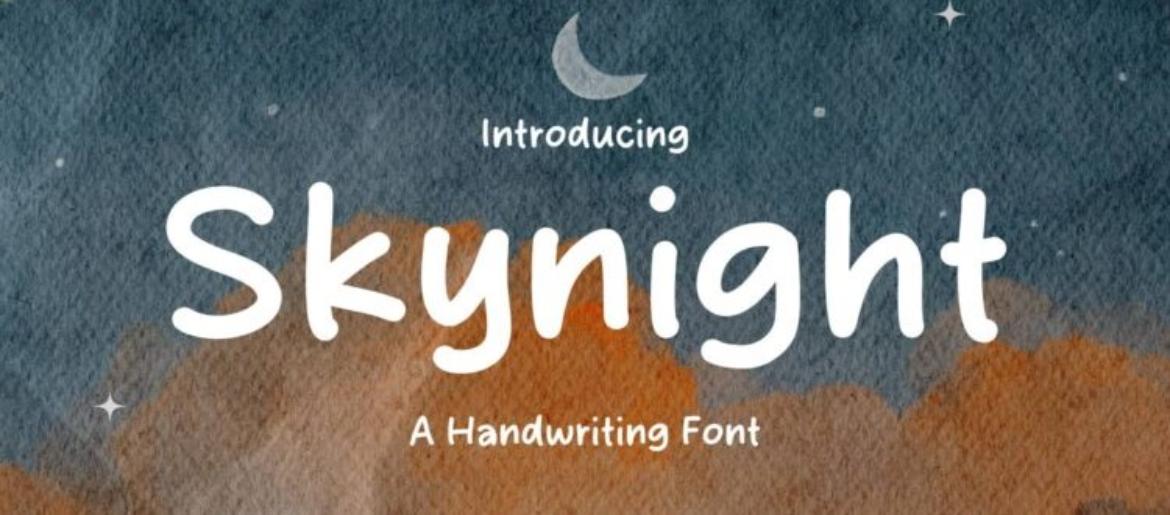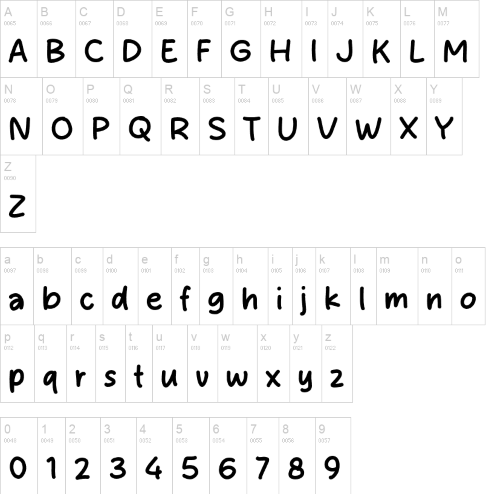
Skynight Font
Skynight font
Skynight Font is a stylish handwritten typeface with smooth, flowing strokes and a relaxed, modern feel. Its natural curves and casual elegance make it perfect for logos, quotes, invitations, social media graphics, and creative branding. Skynight adds a personal, artistic touch that feels warm, expressive, and contemporary.
➤ Font Name: Skynight
➤ Designer: Origin Type
➤ Style: Handwritten